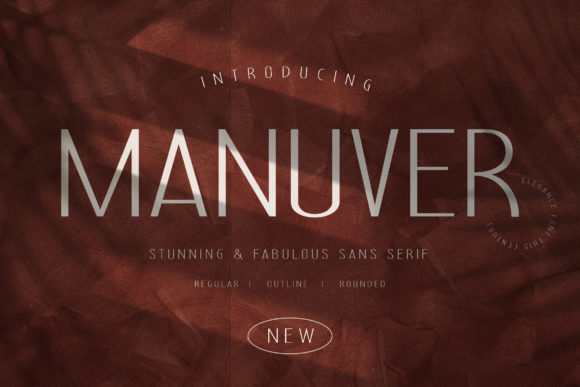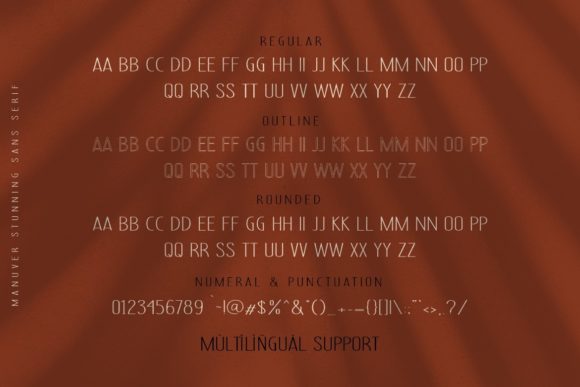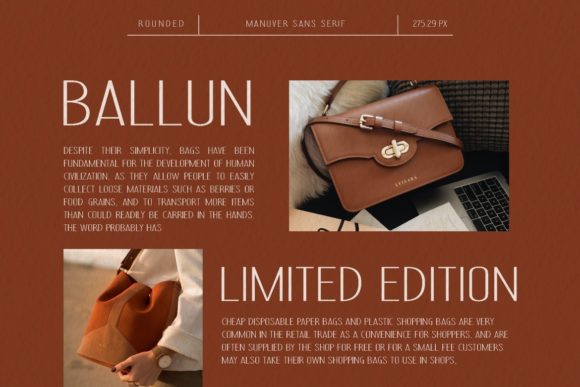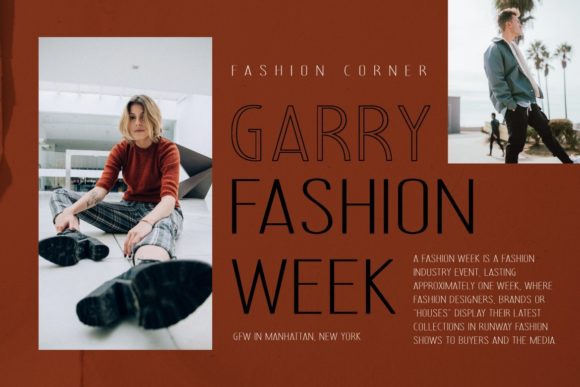
Manuver Font: Modern Minimalist Sans Serif for Logo Design & Branding
About the Manuver Font
Add a touch of class to your work with the Manuver Font, a truly exceptional typeface. Manuver is a minimal and neat sans serif font. It can easily be matched to an incredibly large set of projects, so add it to your creative ideas and notice how it makes them stand out!
Manuver’s clean lines and minimal design make it ideal for headlines, branding applications, and short text blocks in posters or packaging. Its straightforward nature lends itself well to modern and minimalist projects. However, its low x-height makes it less suitable for extended body copy or UI elements where readability is paramount.
Pairing Manuver effectively depends on the desired aesthetic. For a bold and contemporary feel, consider pairing it with a geometric sans-serif like Futura or a strong serif like Garamond. A softer contrast can be achieved using a script font like Allura for a touch of elegance, or a neutral sans-serif like Lato for a more approachable feel.
The overall personality of Manuver is clean, modern, and confident, making it a versatile choice for brands projecting sophistication and a sense of understated authority.
Manuver Font Usage Examples
Manuver Font Example